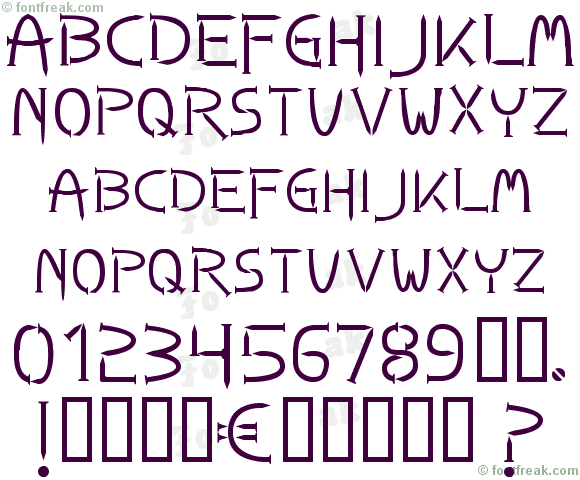
Nails
Nails, designed by Dieter Schumacher in 1999 and released as freeware by Fontmaker, is a striking display font that captures attention with its unique aesthetic. This font falls into the decorative category, characterized by its bold and artistic design. The visual elements of Nails include a prominent stroke weight that gives each letter a robust presence, while the contrast between thick and thin strokes adds a dynamic quality. The spacing of the characters is carefully considered, creating a balanced and visually appealing arrangement that enhances readability.
Nails is an excellent choice for various creative applications. Its distinctive style makes it ideal for wedding invitations, where it can convey a sense of elegance and personality. Additionally, the font works wonderfully for movie posters, lending a dramatic flair that can capture the essence of a film. Restaurant menus can also benefit from Nails, as its unique character can make dish names stand out and entice diners. For graphic designers and content creators looking to make an impression, this font is a versatile tool that adds a touch of creativity to any project.
What sets the Nails font apart is its ability to blend artistic flair with practical usability. Its bold, decorative style not only commands attention but also offers flexibility across various design contexts. For those in search of a unique typeface, the Nails font free download presents an opportunity to incorporate a truly distinctive element into their work.